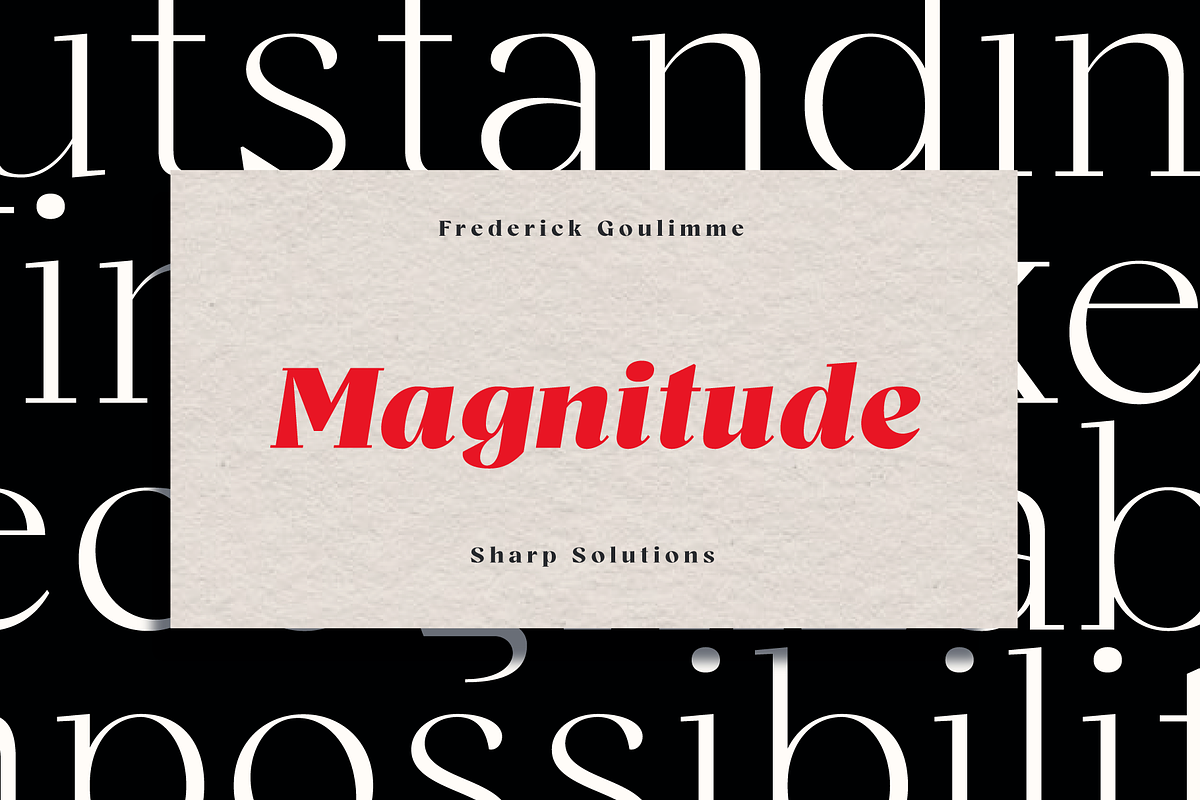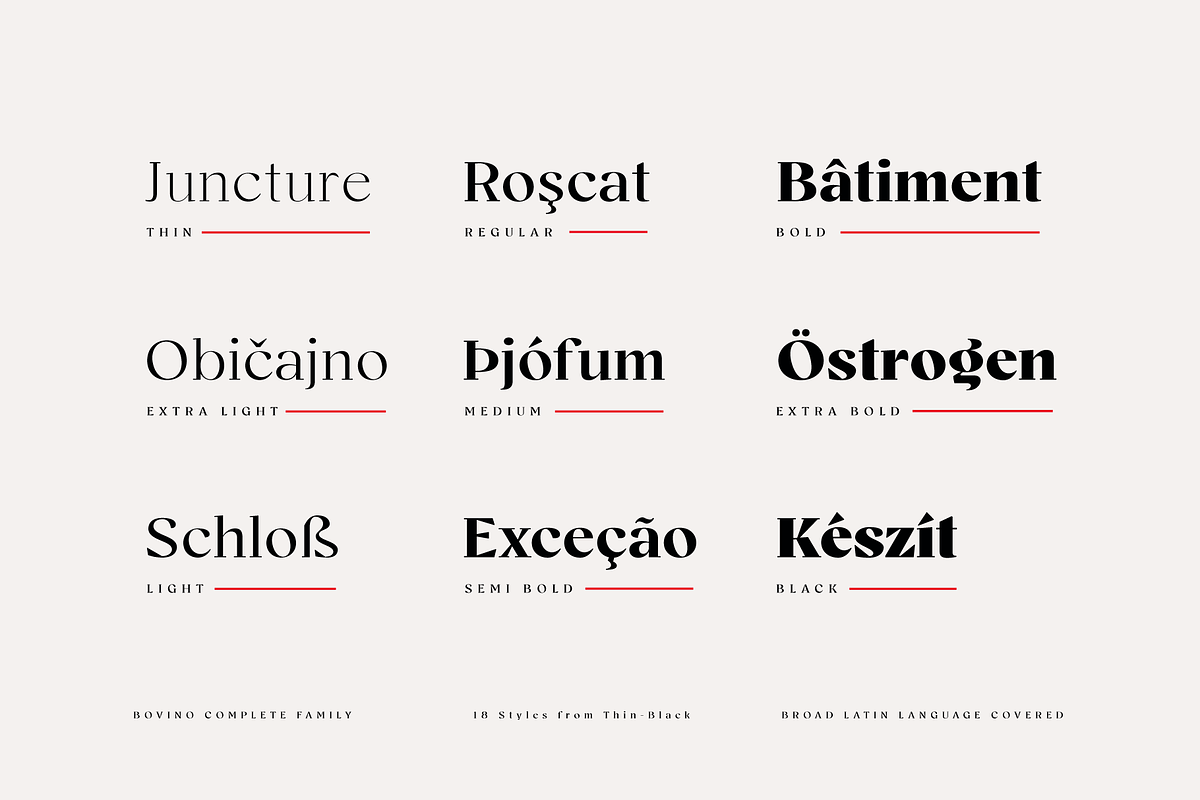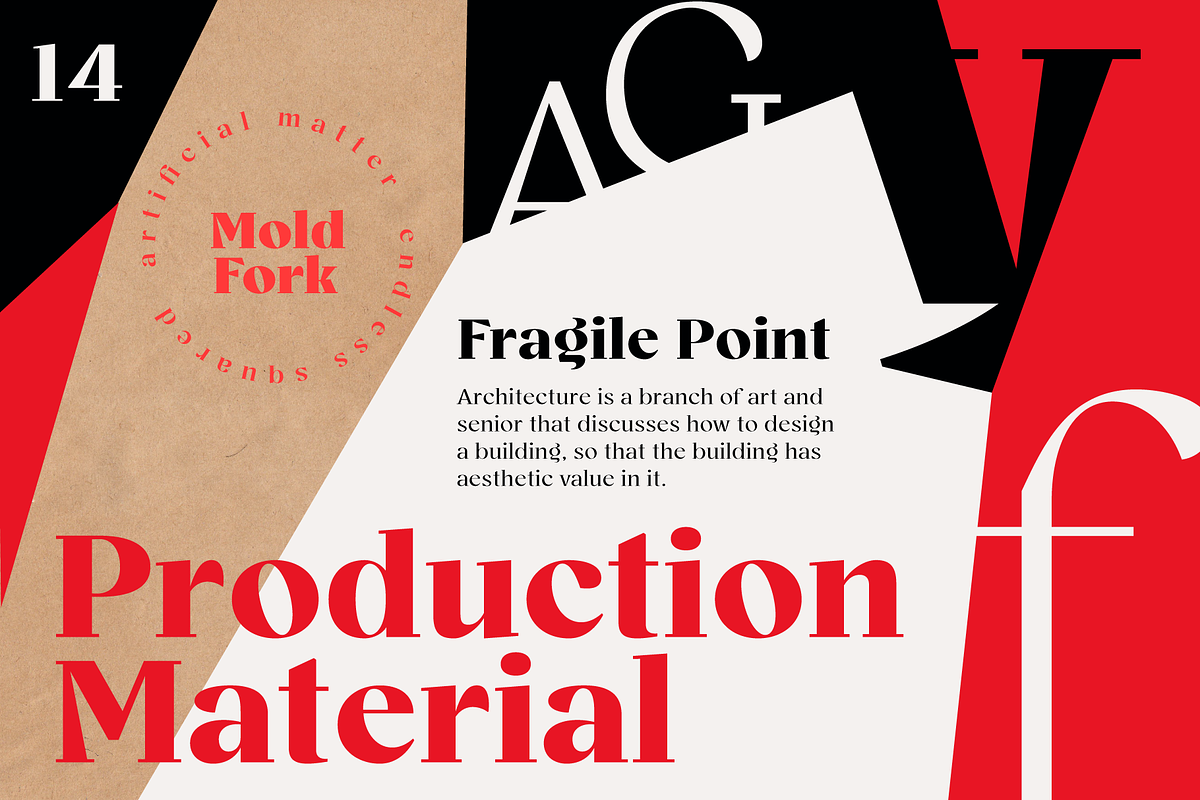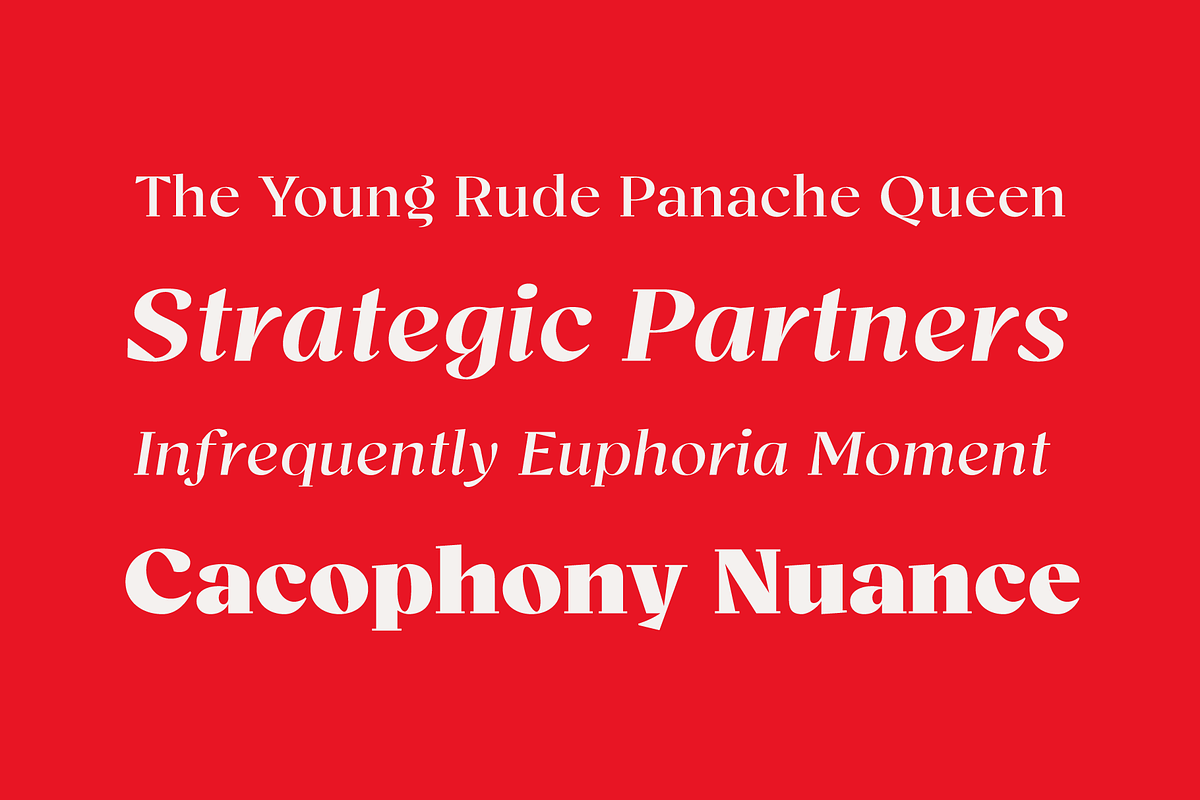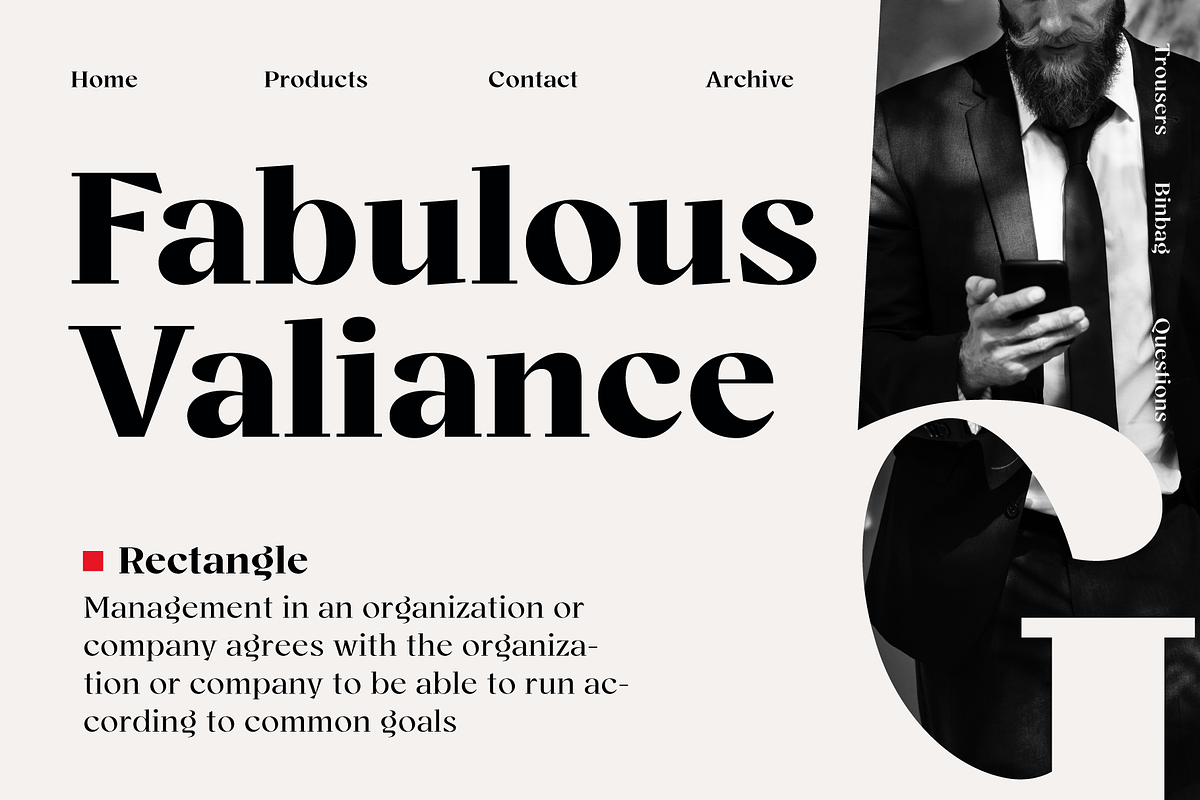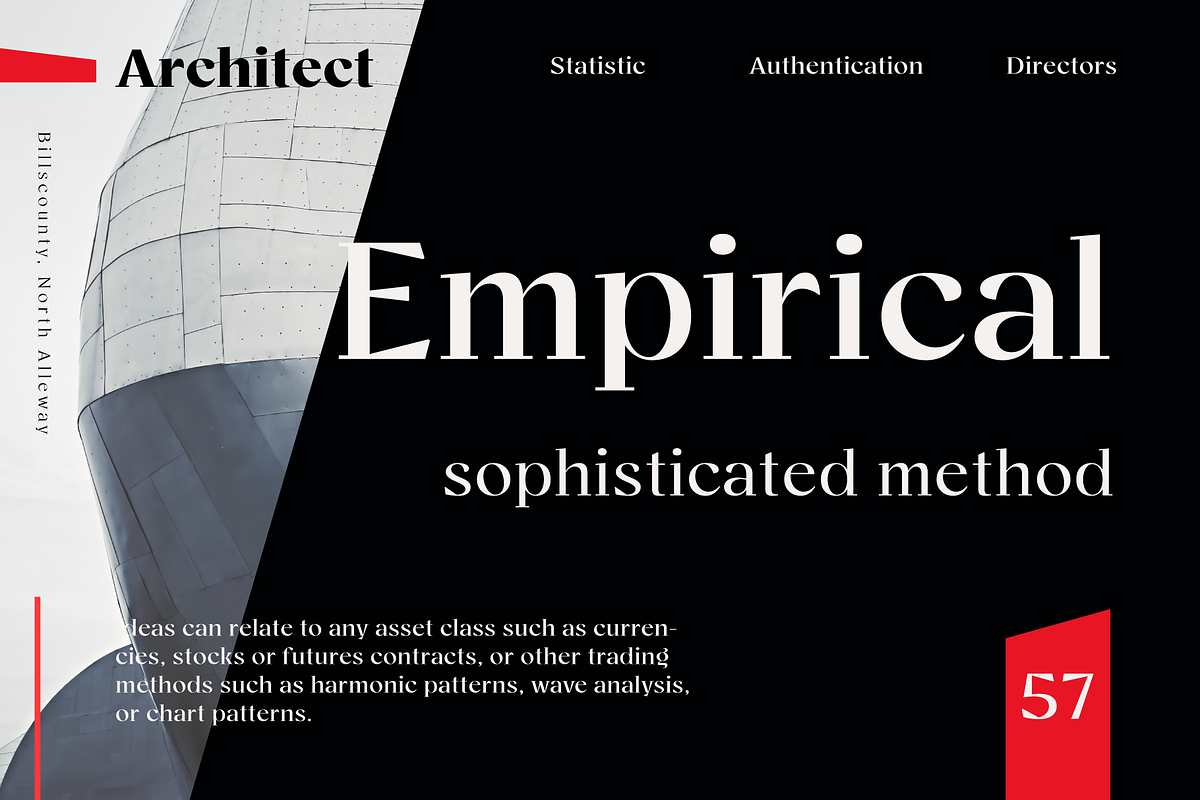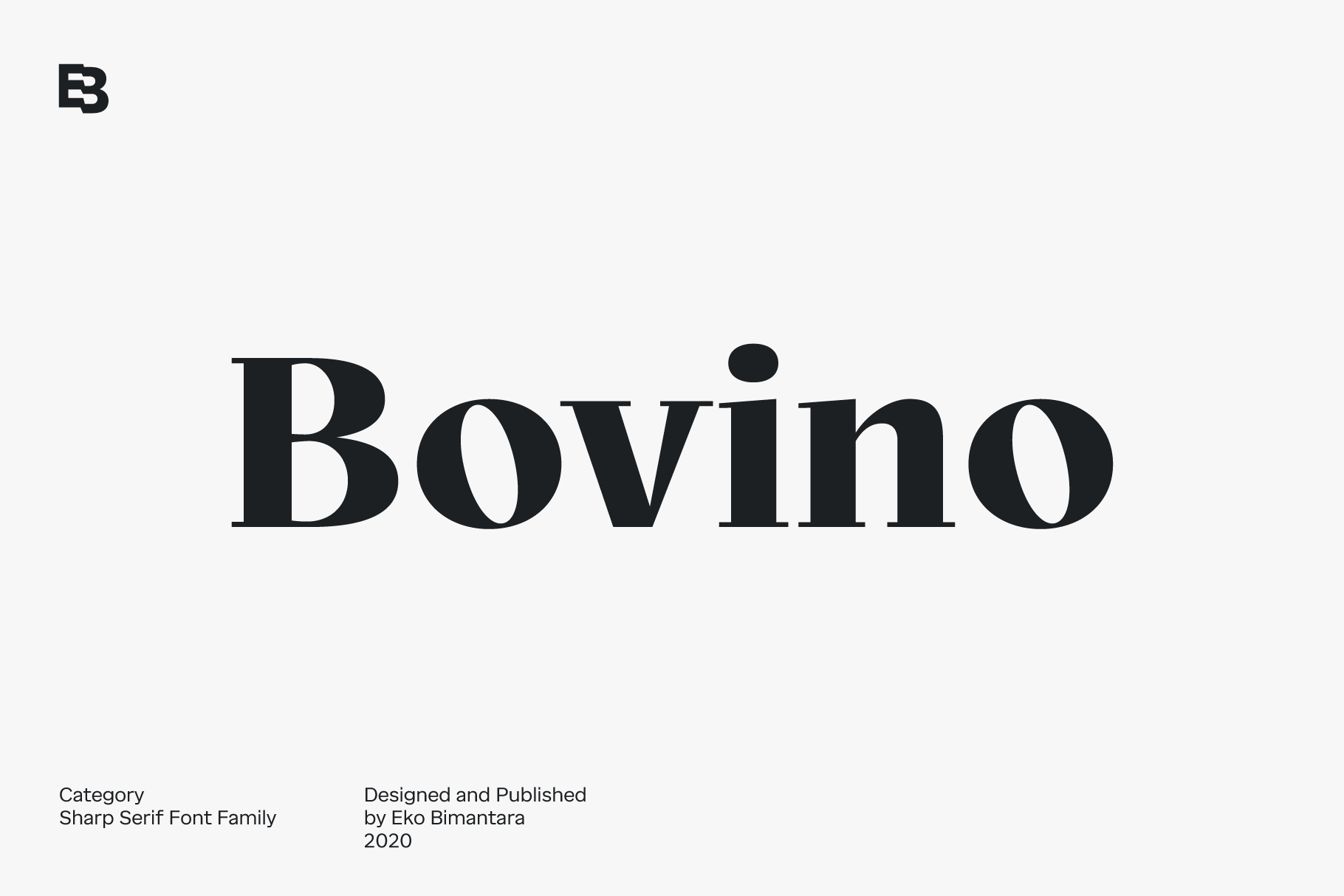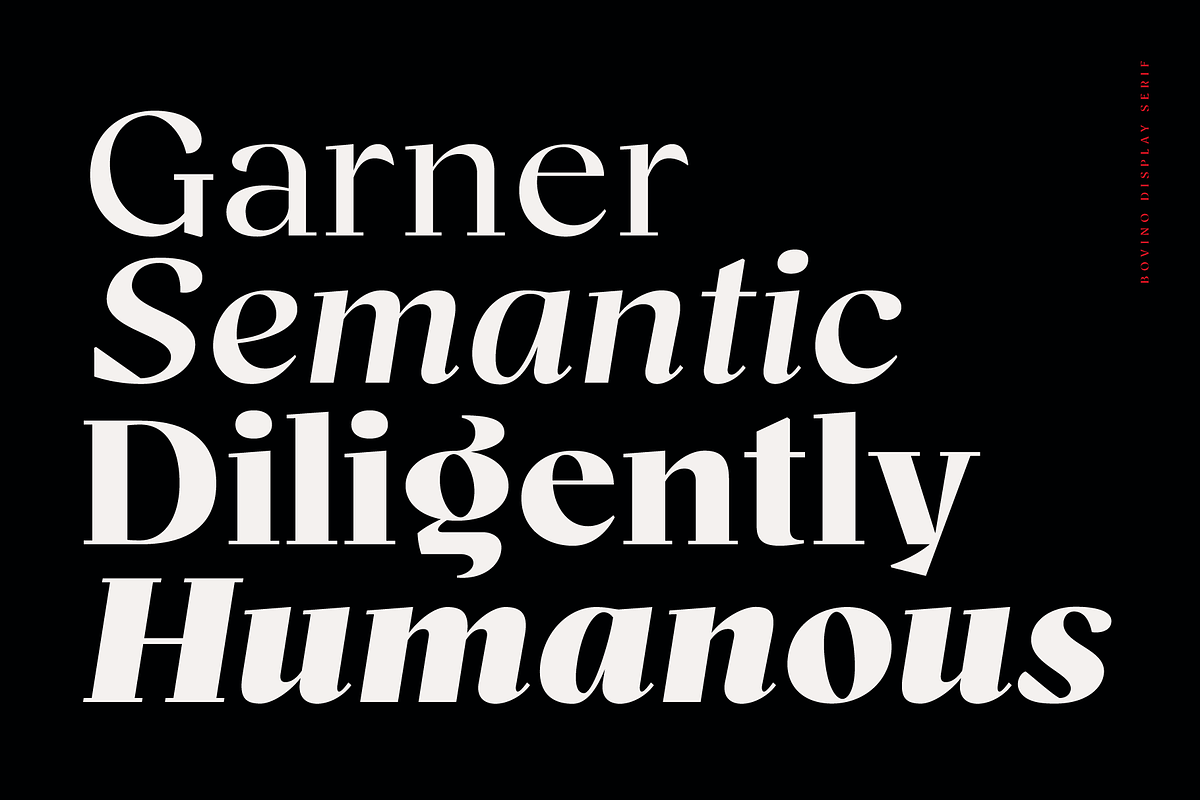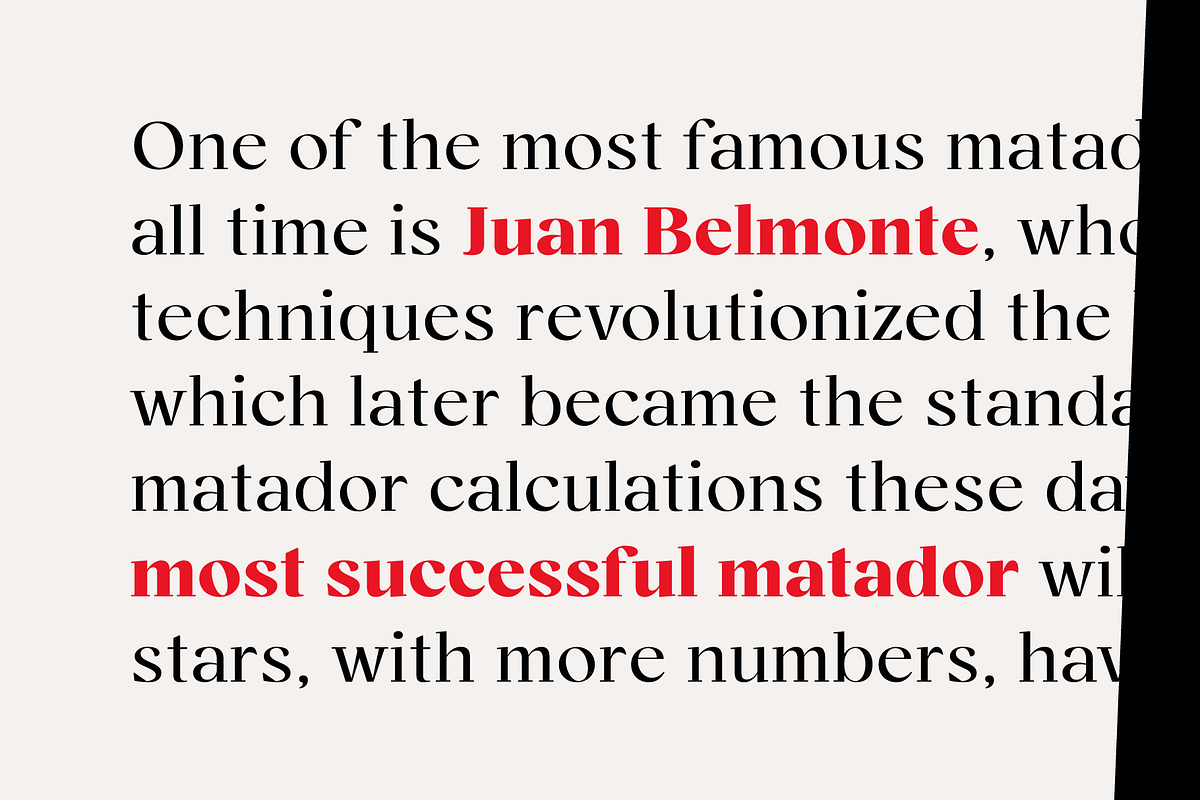
Bovino; 18 Fonts Sharp Serif
Bovino is a display serif font family. It was formed in a strong and sharp characters. The moderate x height and high contrast strokes make it attractive for titles and large size usage. Bovino contain more than 400 glyphs which covered broad latin languages, its consist of 9 styles from thin to black with each matching italics.